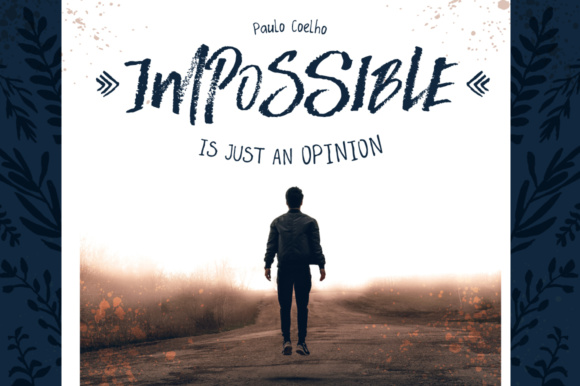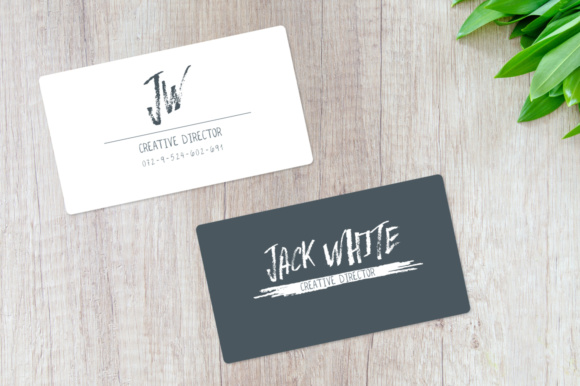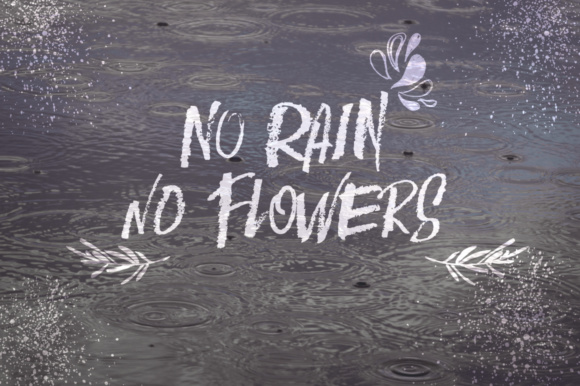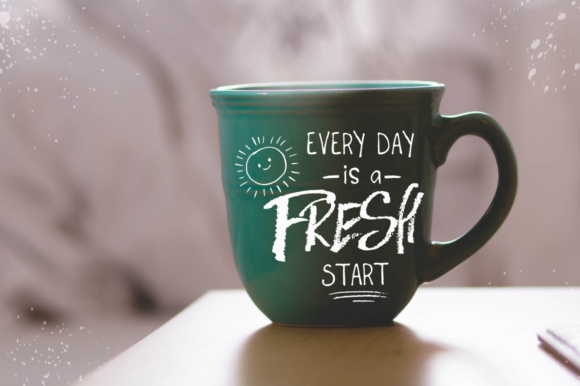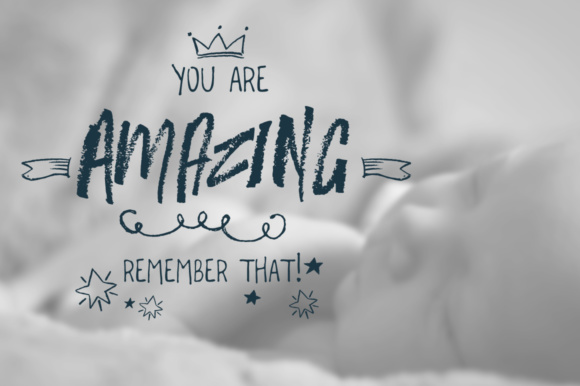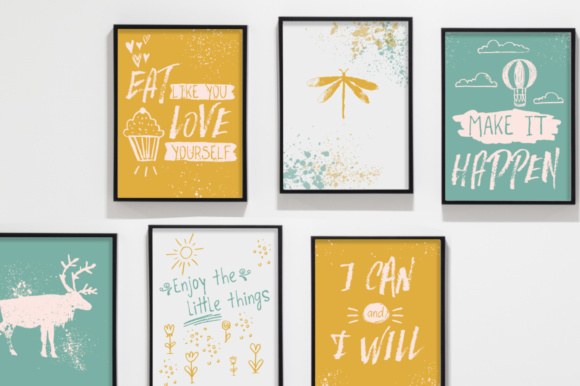
Woodnote Font
About Woodnote Font
Woodnote is a beautiful, charcoal font with tons of energy and style! This rough brushed font comes with a light version as well, and also includes over 300 hand drawn vector doodles for use in giving your designs a fun and organic vibe!